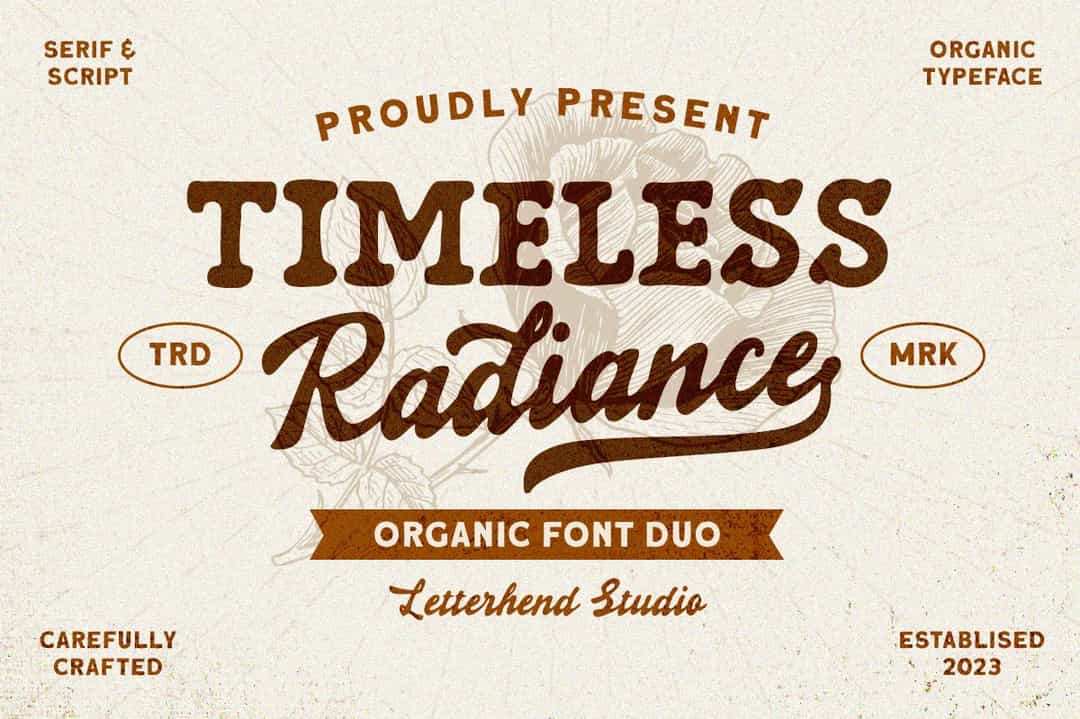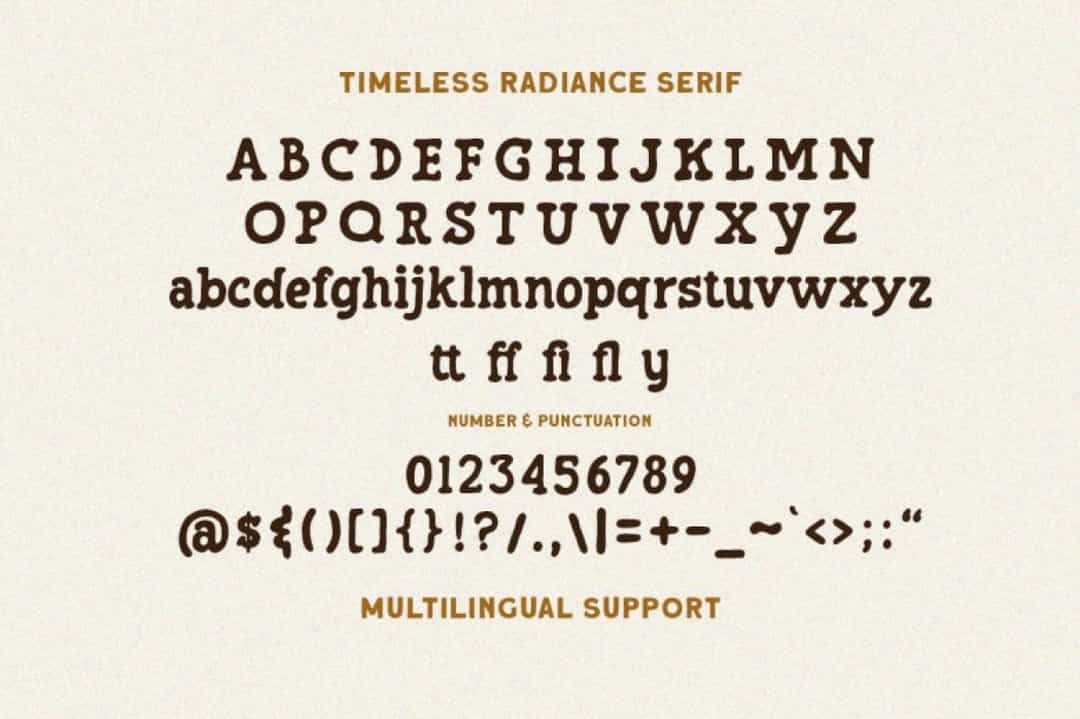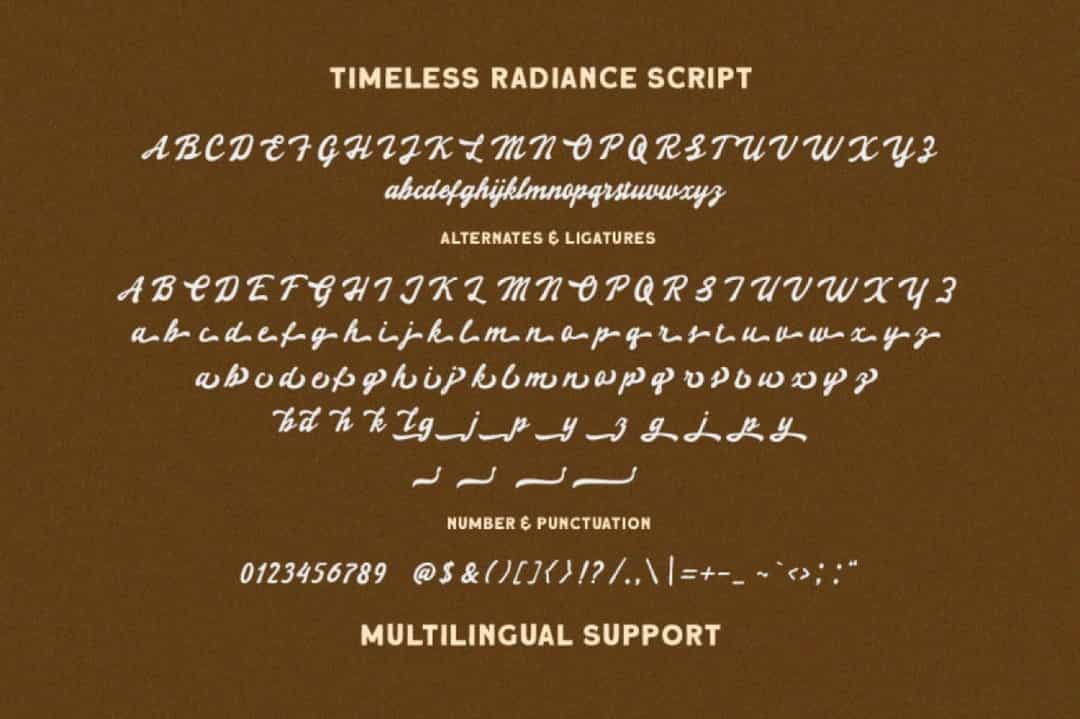
Timeless Radiance Font
Timeless Radiance is a natural font set composed of an imposing script combined with an elegant serif slab for a classic aesthetic and feel. This font was intended for headlines, logos and signage as well as formal designs such as labels, invitations and magazines as well as wedding/anniversary cards packaging, fashion, makeup stationery, books, labels or marketing purposes.